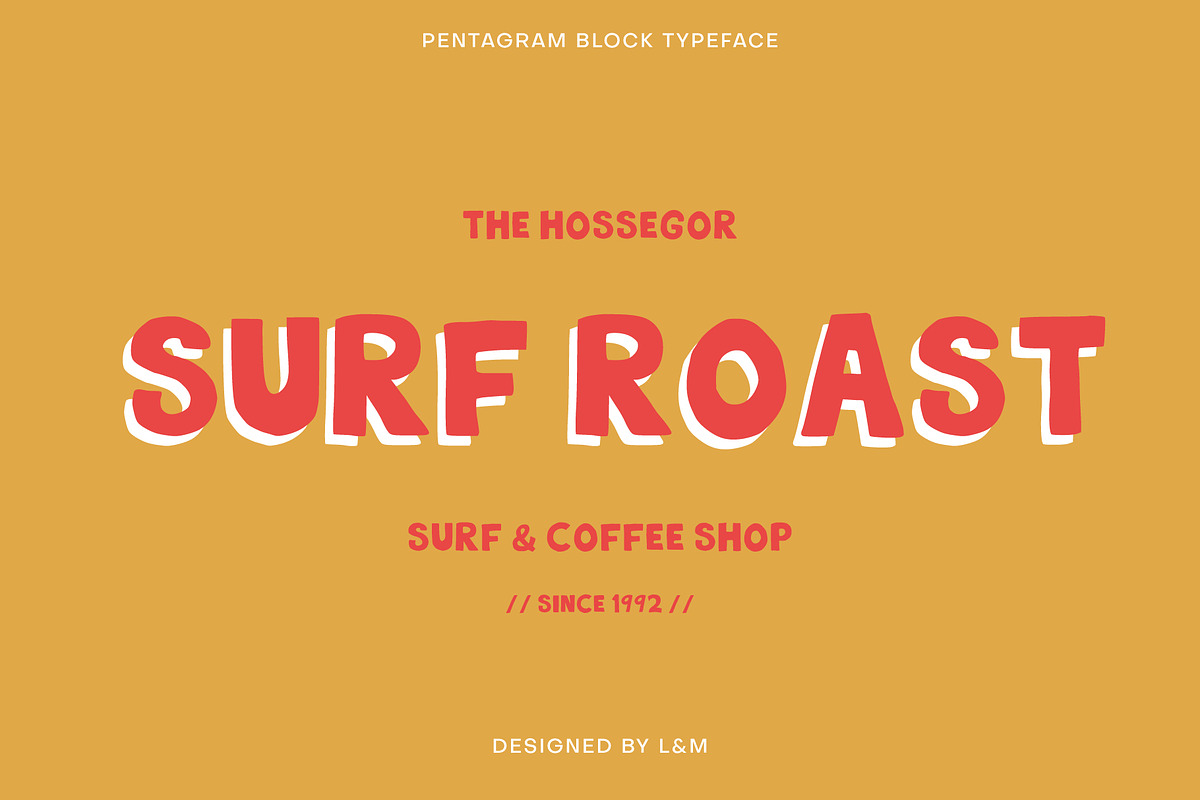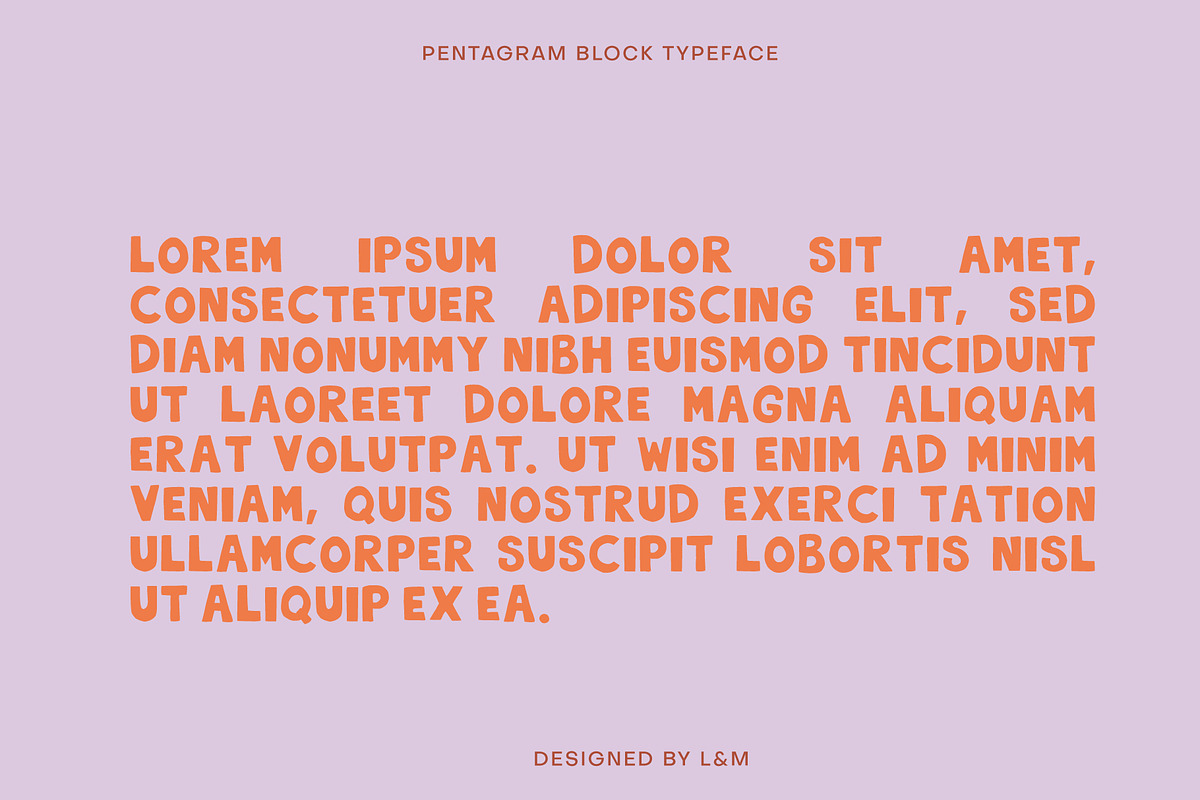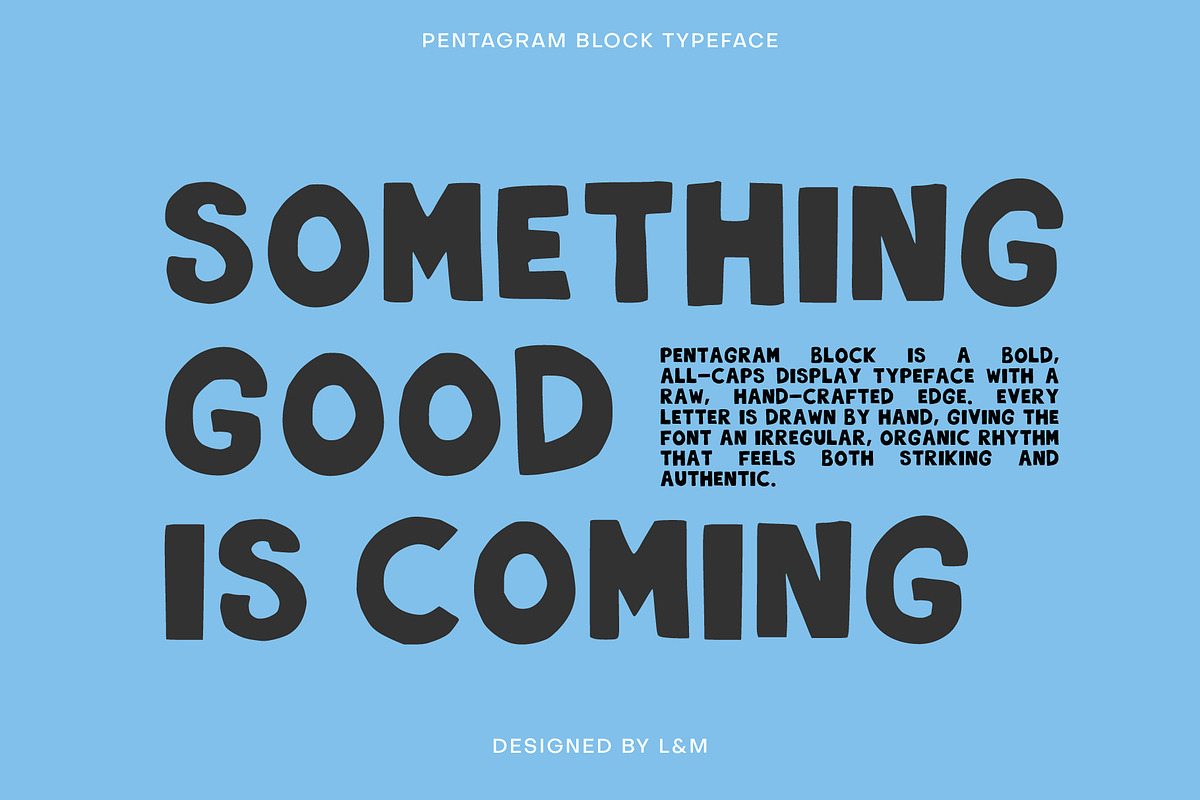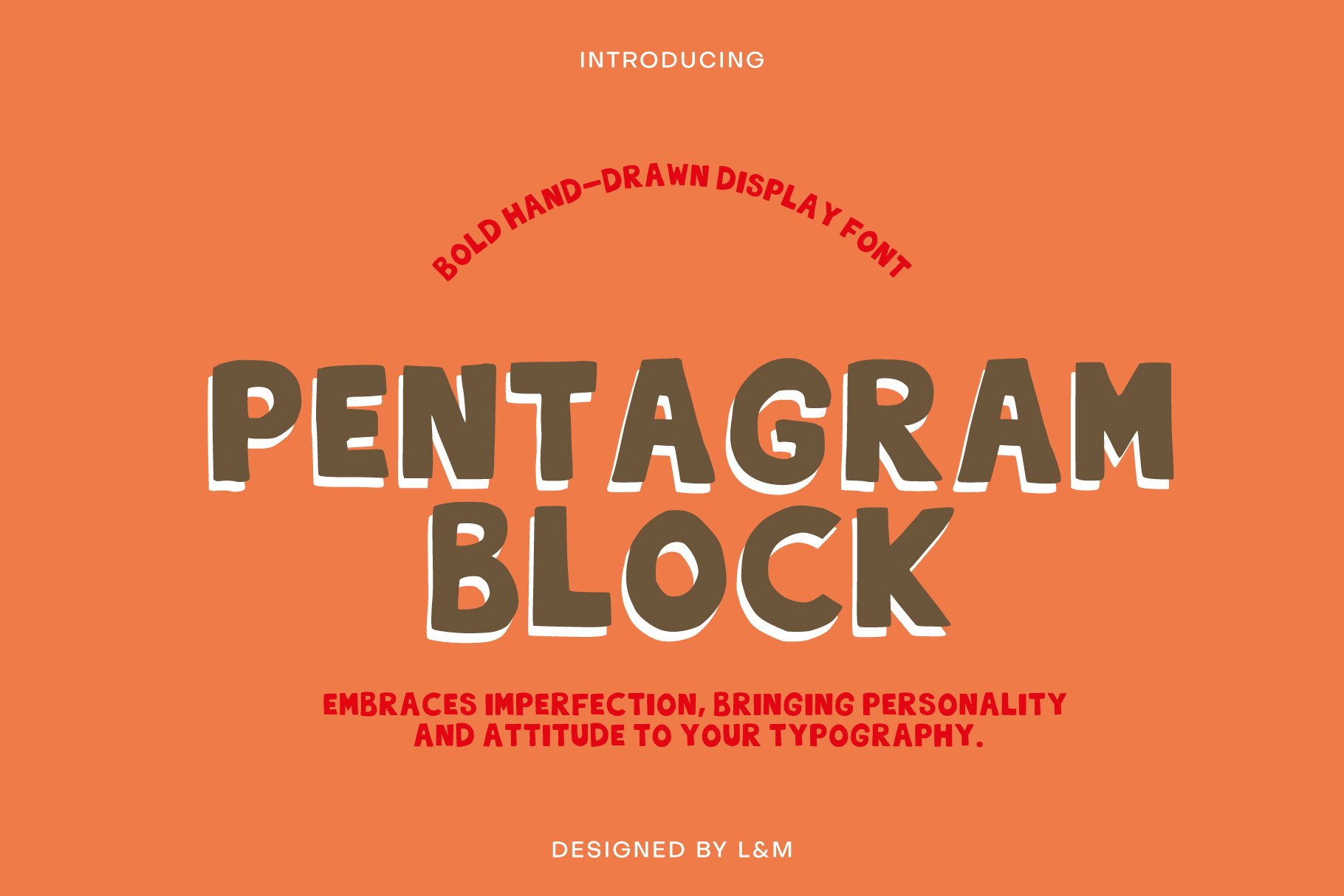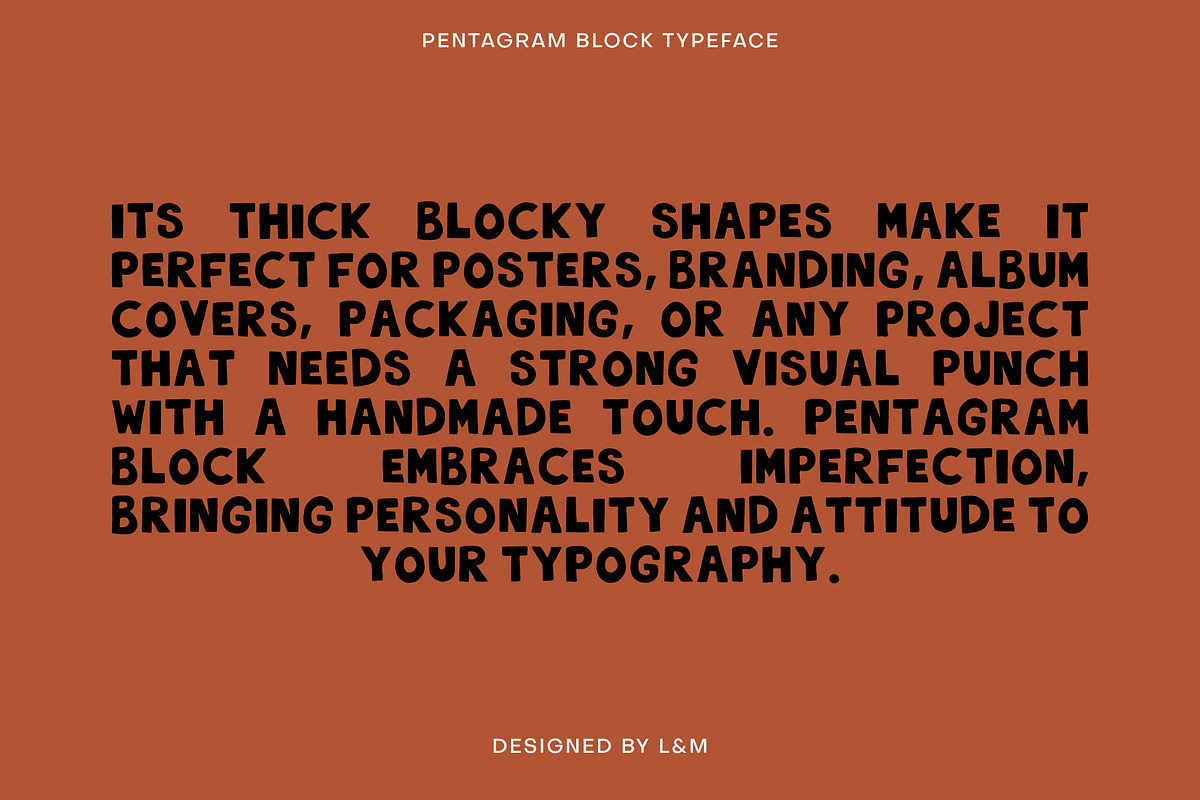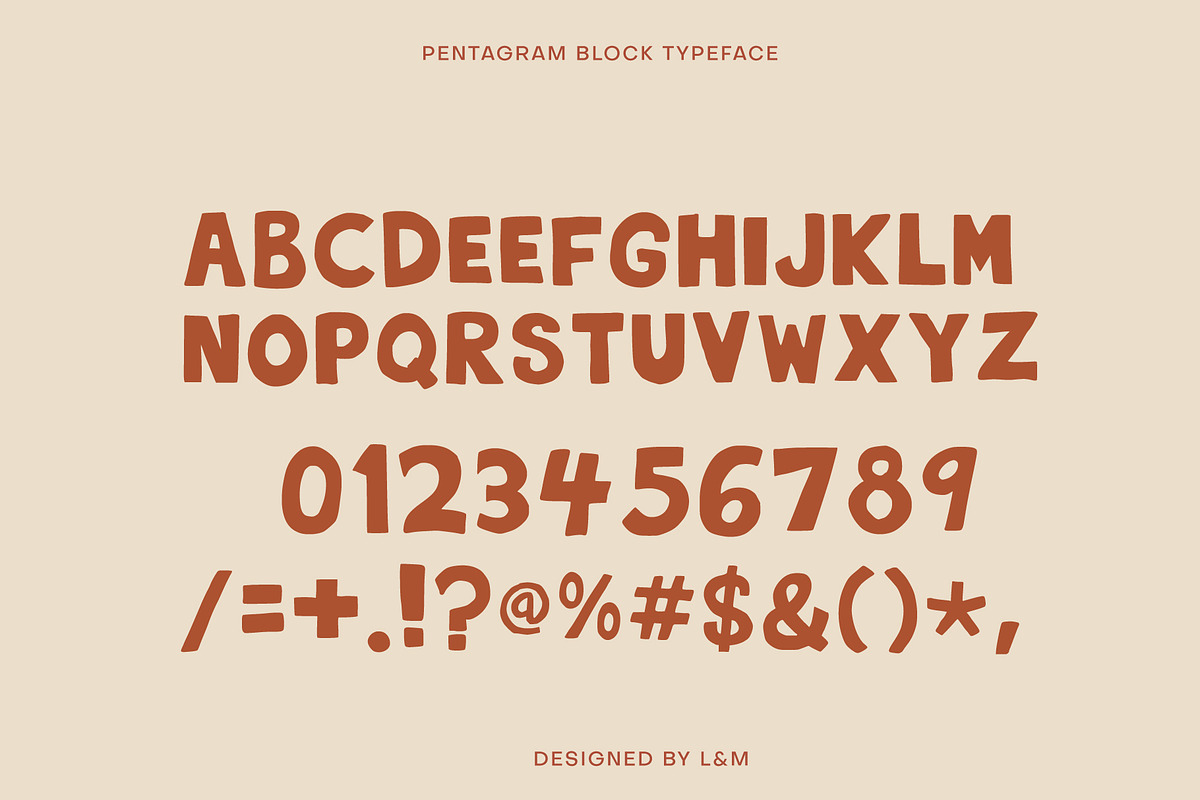
Pentagram Block - Bold display Font
Pentagram Block – Hand-Drawn Display Font
Pentagram Block is a bold, all-caps display typeface with a raw, hand-crafted edge. Every letter is drawn by hand, giving the font an irregular, organic rhythm that feels both striking and authentic.
Its thick, blocky shapes make it perfect for posters, branding, album covers, packaging, or any project that needs a strong visual punch with a handmade touch. Pentagram Block embraces imperfection, bringing personality and attitude to your typography.
All uppercase letters Bold, irregular hand-drawn style Perfect for headlines, logos, and creative projects OTF/TTF formats included
Bring your words to life with Pentagram Block – a font that’s loud, bold, and unapologetically handmade.